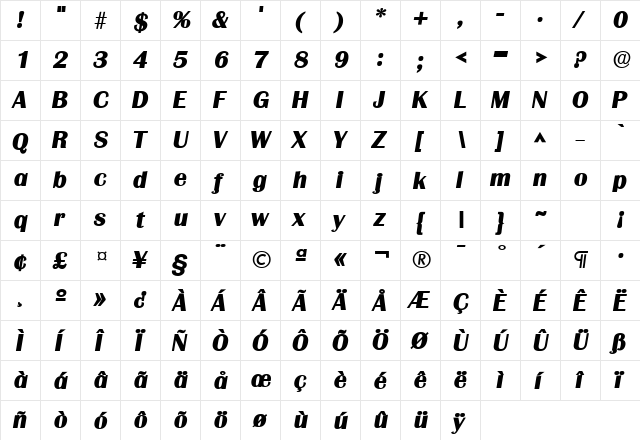
Grenoble Heavy SF Bold Italic Font Preview
Design Context for Grenoble Heavy SF Typeface
Grenoble Heavy SF offers clean, dependable letterforms without strong stylistic allegiance, making it a practical choice for designers who need flexibility. The dynamic lean of this cut emphasises speed and emphasis in any layout. Its bold stroke weight gives it real presence on the page.
Pro Tip: Try Grenoble Heavy SF for annotation and caption copy alongside an upright companion — the contrast in angle creates a dynamic but ordered typographic system.